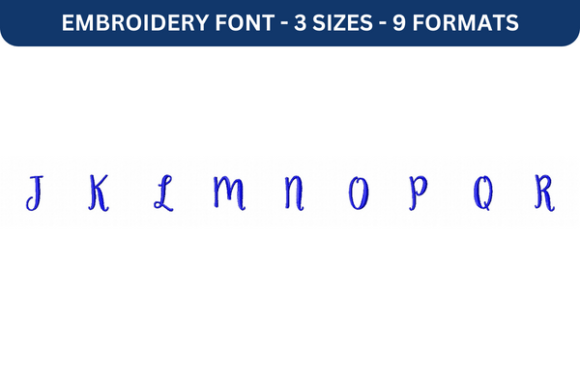
Ke Aloha Font Upper J to R: A Versatile Embroidery Solution
The Art of Personalized Embroidery with Ke Aloha Font Upper J to R
When it comes to adding a personal touch to fabric, the right font can make all the difference. Ke Aloha Font Upper J to R is a high-quality embroidery font designed to bring creativity and precision to your projects. Whether you're crafting custom gifts, branding products, or enhancing your digital content, this font offers a blend of style and functionality that stands out in both personal and professional settings.
Why Ke Aloha Font Upper J to R Stands Out
What sets Ke Aloho Font Upper J to R apart is its attention to detail and versatility. The font features clean lines, elegant curves, and a consistent design that works well across various surfaces. Its uppercase letters are especially suited for names, dates, and quotes, making it ideal for personalized items like t-shirts, bags, and home decor.
One of the key strengths of this font is its adaptability. It’s not just for casual use—it’s built for professionals who need reliability and quality. From freelancers creating custom designs to entrepreneurs branding their products, Ke Aloha Font Upper J to R delivers a polished look that enhances any project.
Practical Applications Across Multiple Industries
The utility of Ke Aloha Font Upper J to R extends far beyond personal use. Let’s explore how it can be applied in different environments:
- Personal Projects: Use it to embroider meaningful messages on gifts, wedding favors, or custom apparel.
- Professional Branding: Incorporate the font into logos, product tags, or promotional materials to create a cohesive brand identity.
- Education: Teachers and educators can use it to label classroom supplies, craft student awards, or add visual appeal to educational materials.
- Creative Workshops: Artists and designers can integrate the font into mixed-media projects, scrapbooking, or custom illustrations.
- Digital Content: While primarily an embroidery font, it can also be used in graphic design software to create visually striking text elements for websites or social media posts.
- Commercial Use: Businesses can leverage the font for signage, packaging, or promotional items, ensuring consistency across all branding materials.
Each application benefits from the font’s readability and aesthetic appeal. Whether you’re working on a small-scale project or a large commercial endeavor, Ke Aloha Font Upper J to R ensures your message is both clear and impactful.
Key Features That Enhance Usability and Efficiency
Additionally, the font includes a range of customization options, allowing users to adjust letter spacing, size, and placement to suit their specific needs. This level of control is particularly valuable for those looking to create unique, tailored designs.
For marketers and bloggers, the ability to quickly generate eye-catching designs can significantly boost productivity. By integrating Ke Aloha Font Upper J to R into their creative process, they can streamline design tasks and focus more on content creation.
Real-World Examples and Use Cases
To better understand how Ke Aloha Font Upper J to R can be applied, consider these real-world examples:
- Wedding Invitations: A couple might use the font to embroider custom phrases on invitation cards, adding a personal touch that reflects their style.
- Corporate Branding: A company could incorporate the font into their logo design or product labels, reinforcing brand recognition and professionalism.
- Custom Apparel: A small business owner might use the font to create embroidered patches or tags for clothing, helping to differentiate their products in a competitive market.
- Event Decor: Event planners can use the font to create banners, signs, or table numbers that align with the event's theme and atmosphere.
- Online Store Listings: E-commerce creators can use the font in product descriptions or images to highlight special offers or customer testimonials.
These examples illustrate how Ke Aloha Font Upper J to R can be integrated into various aspects of daily life and business operations. Its flexibility and quality make it a reliable choice for anyone looking to elevate their designs.
Choosing the Right Font for Your Needs
When selecting an embroidery font, it’s important to consider factors such as readability, scalability, and compatibility. Ke Aloha Font Upper J to R excels in all these areas, offering a balance between artistic expression and practicality.
For educators and creators, the font’s clean design makes it easy to read even at smaller sizes, which is essential for labeling or signage. For business owners, the font’s professional appearance supports brand consistency and customer engagement.
Ultimately, the best way to determine if Ke Aloha Font Upper J to R is right for you is to test it in your intended applications. Try using it on different fabrics and machines to see how it performs under various conditions.
With its combination of style, functionality, and versatility, Ke Aloha Font Upper J to R is more than just a font—it’s a powerful tool for anyone looking to personalize and enhance their embroidery projects.